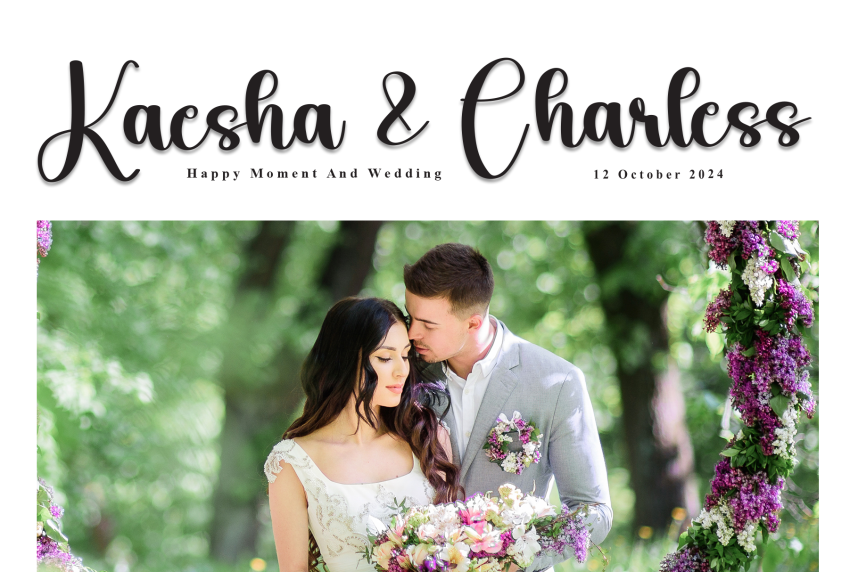
Baby Booties – Creative Handwritten Font
Baby Booties – Creative Handwritten Font, special creative products for you, our products will give you an extraordinary experience. the latest style letters are perfect for wall displays, wedding invitations, social media post logos, advertisements, product packaging, product designs, labels, photography, watermarks, invitations, stationery, and any project that requires taste handwriting.